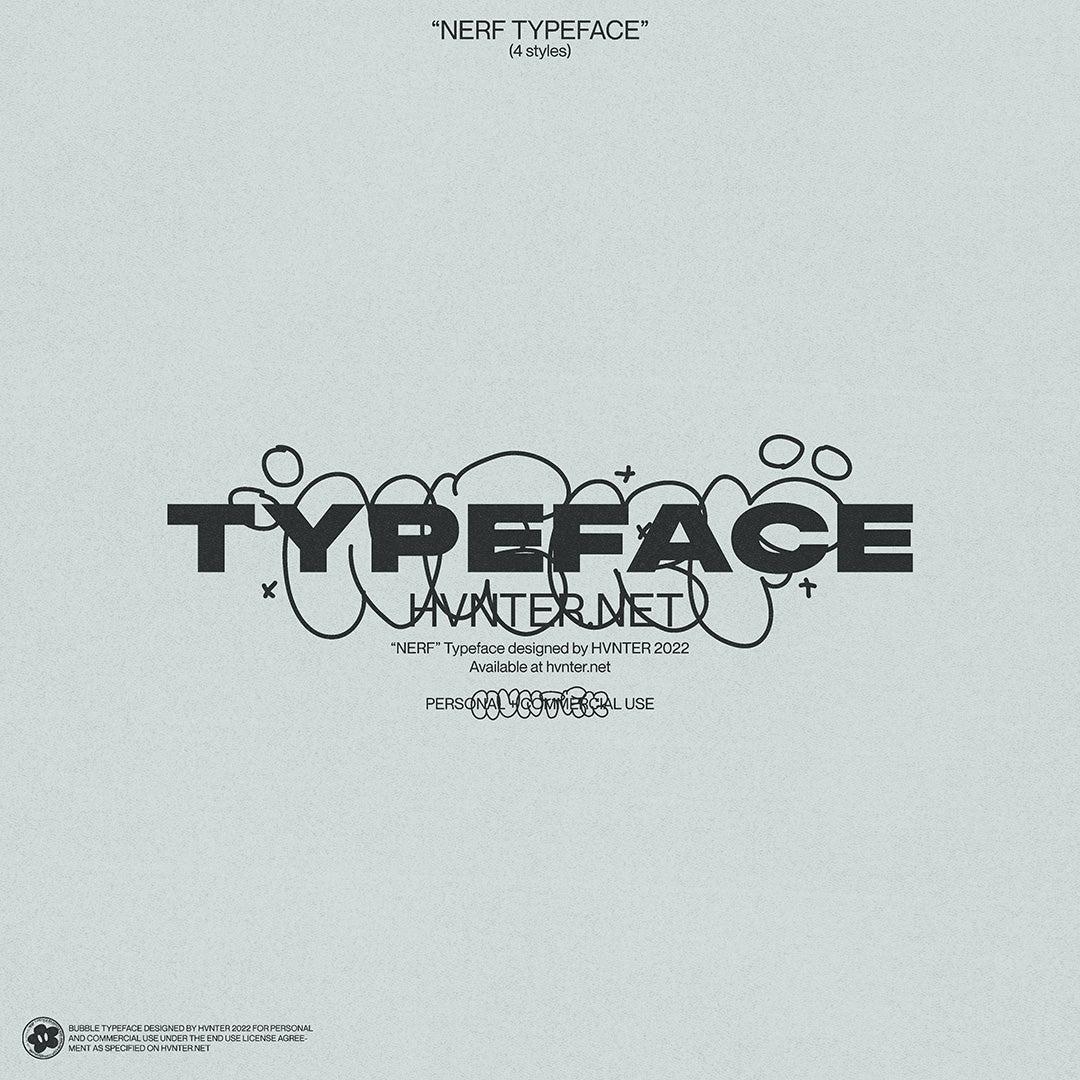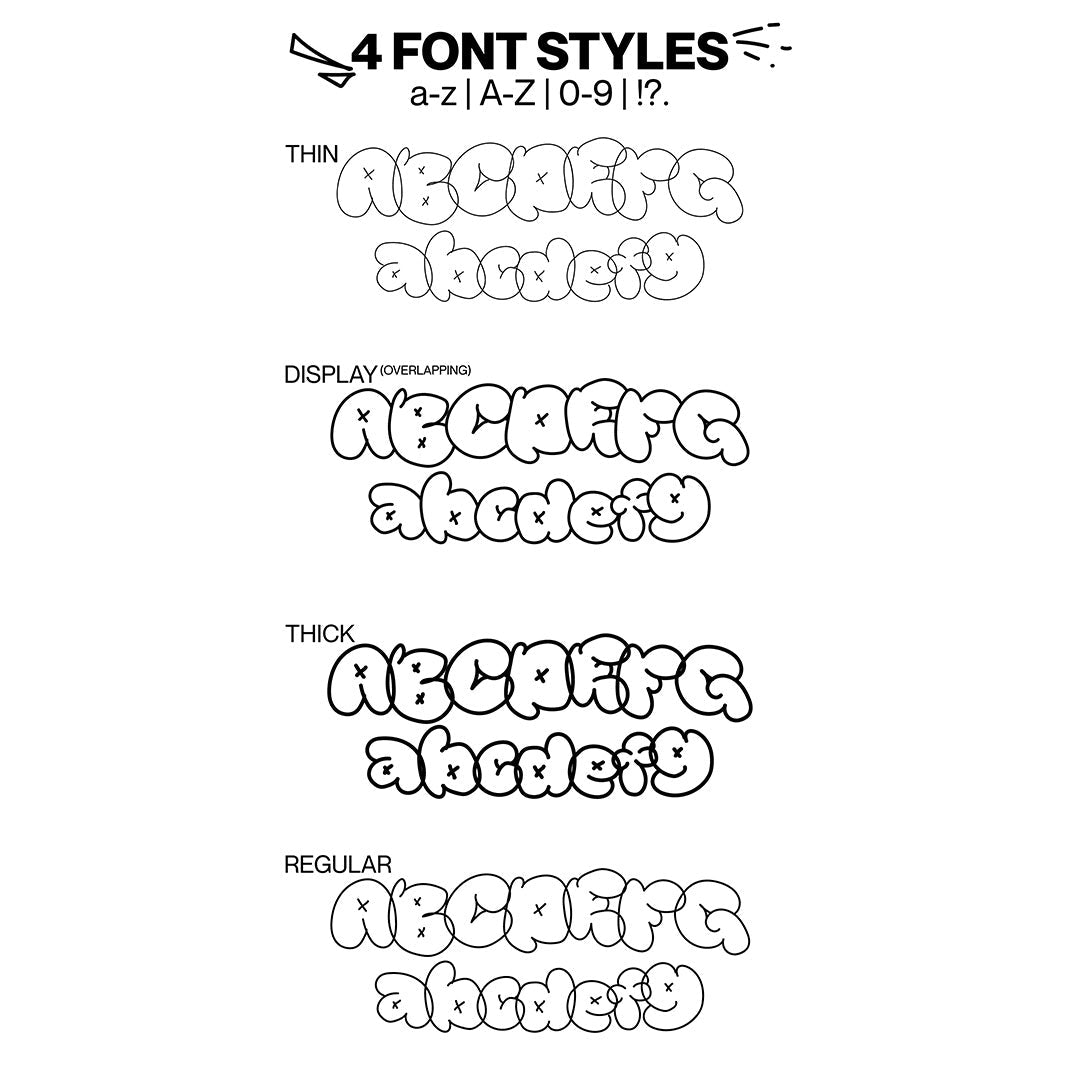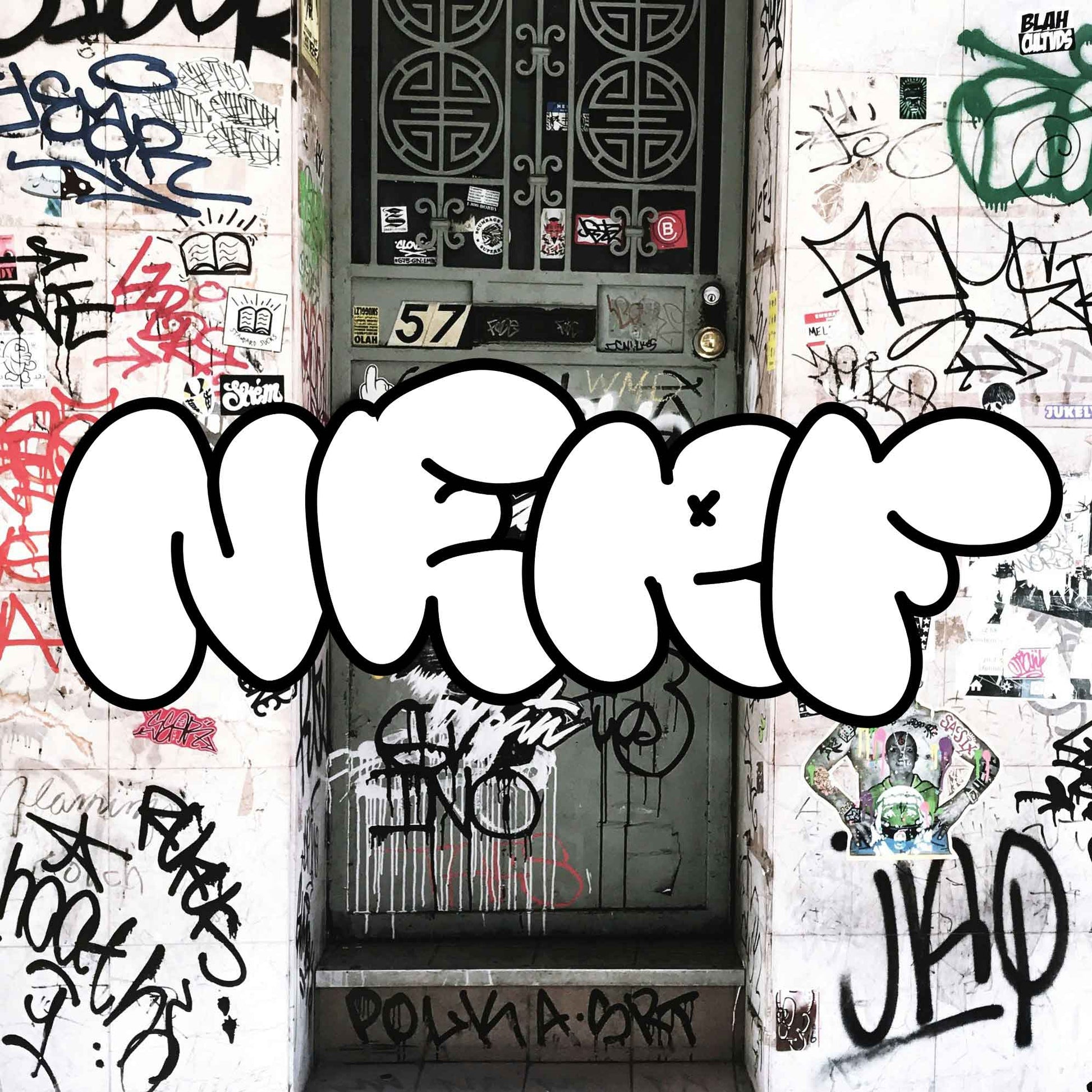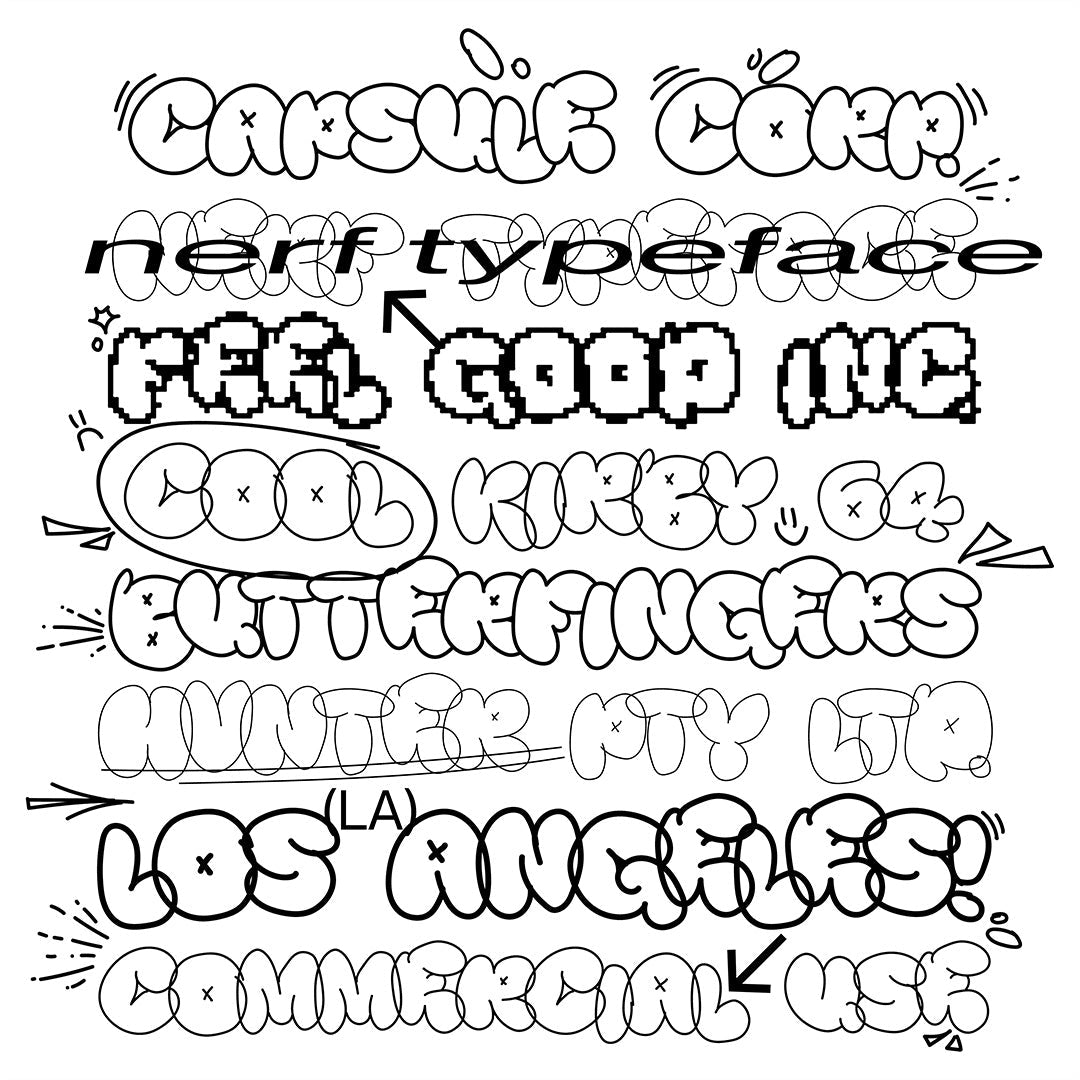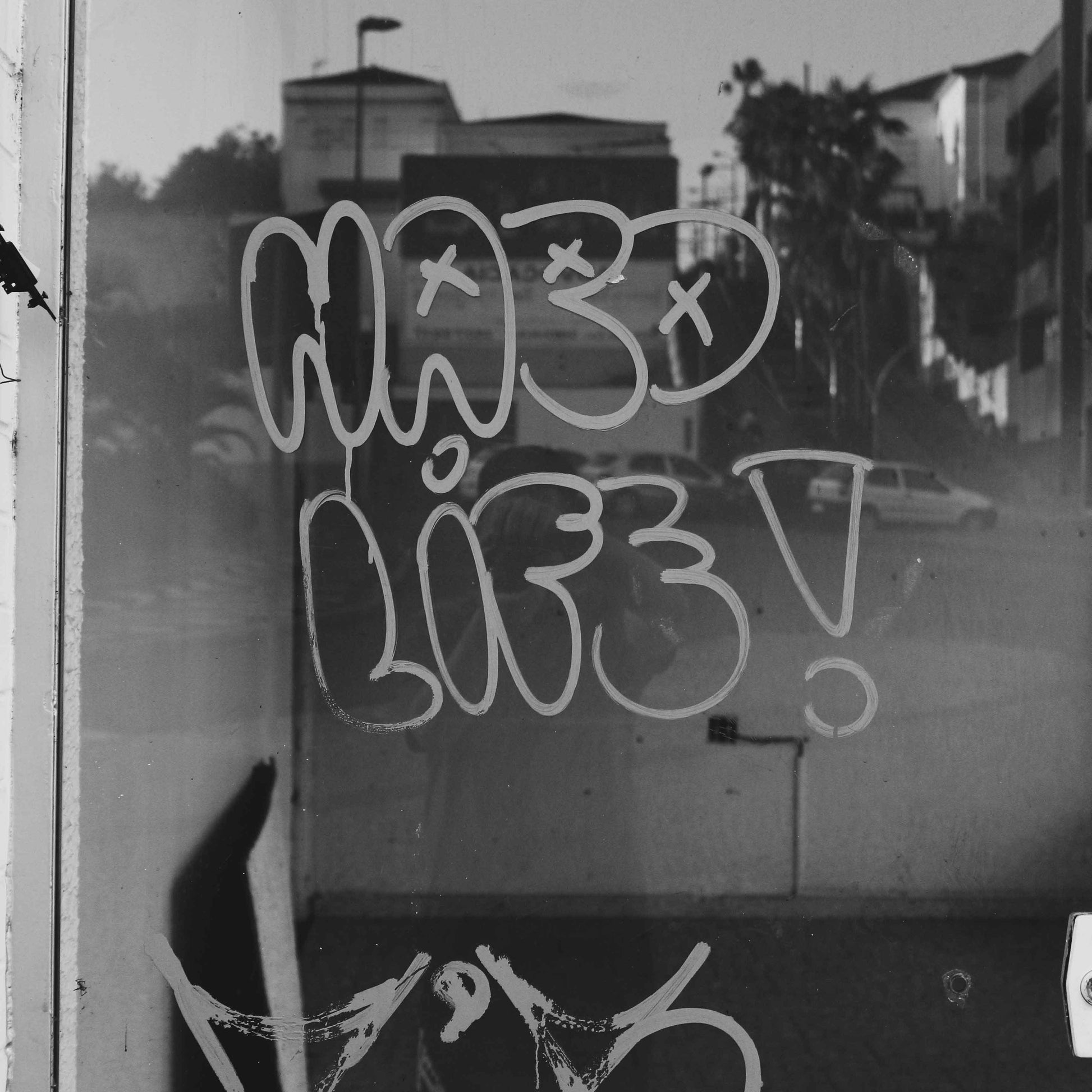
NERF Typeface
NERF is vandal_ tagging typography—digitized NYC graffiti bursting from the heart of the world’s graffiti capital. Inspired by classic bubble-letter styles crafted on subway cars and street corners, HVNTER channels the spirit and spontaneity of legendary New York taggers into this vibrant typeface.
Four dynamic styles bring street-art authenticity, rounded rebellion, and bold urban expression to your designs. Ideal for gritty branding, provocative posters, zine aesthetics, and digital vandalism, NERF is your toolkit for turning visuals into streetwise masterpieces.
NERF—Street graffiti. Digital rebellion. Bubble-lettered brilliance.